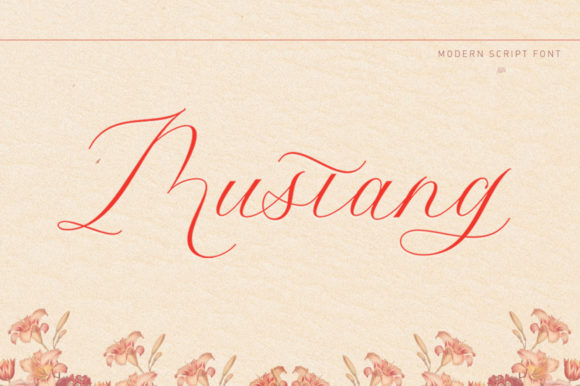
Step into the captivating world of Mustang Script, a calligraphic masterpiece that exudes elegance and charm. A symphony of flowing curves, graceful strokes, and stunning swashes, Mustang Script is the perfect font for designers, creatives, and anyone seeking to add a touch of sophistication to their projects.
Crafted meticulously by the skilled hands of Area Type, Mustang Script is a testament to the artistry of typography. Its carefully designed characters evoke a sense of timeless beauty, making it a versatile choice for a wide range of applications. From elegant logos and wedding invitations to eye-catching posters and signage, Mustang Script adds a touch of refinement to any design concept.
Effortlessly stylish, Mustang Script captivates with its dynamic movement and elegant flourishes. Its playful swashes add a touch of whimsy, while its solid foundation ensures legibility and readability. Whether you're creating custom logos, designing invitations, or crafting social media graphics, Mustang Script elevates your work with its timeless appeal.
Unleash your creativity and explore the endless possibilities with Mustang Script. Dive into a world of sophisticated designs, enchanting branding, and unforgettable visuals. Let this font be your muse, guiding you to create captivating masterpieces that leave a lasting impression.